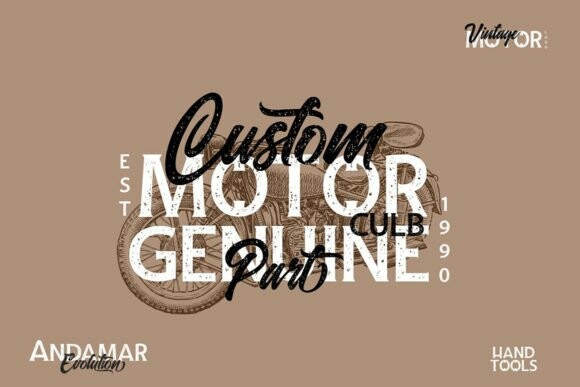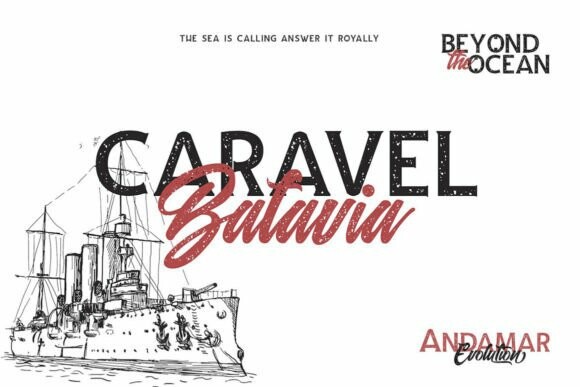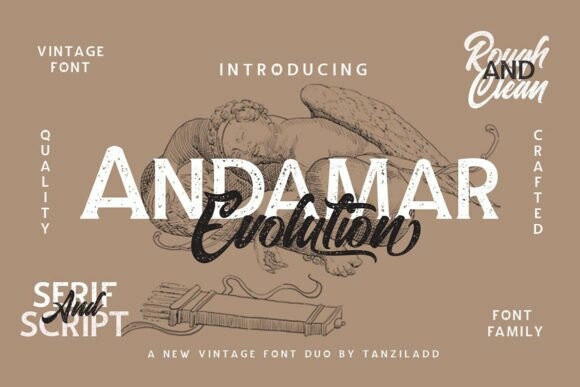
Andamar Font
Andamar Font is a duo font that features a sleek and modern design, combining a rough serif font with a smooth and elegant script. The serif font boasts strong and edgy lines, while the script adds a touch of sophistication and fluidity. The combination of the two creates a balanced and versatile font perfect for any contemporary design project.